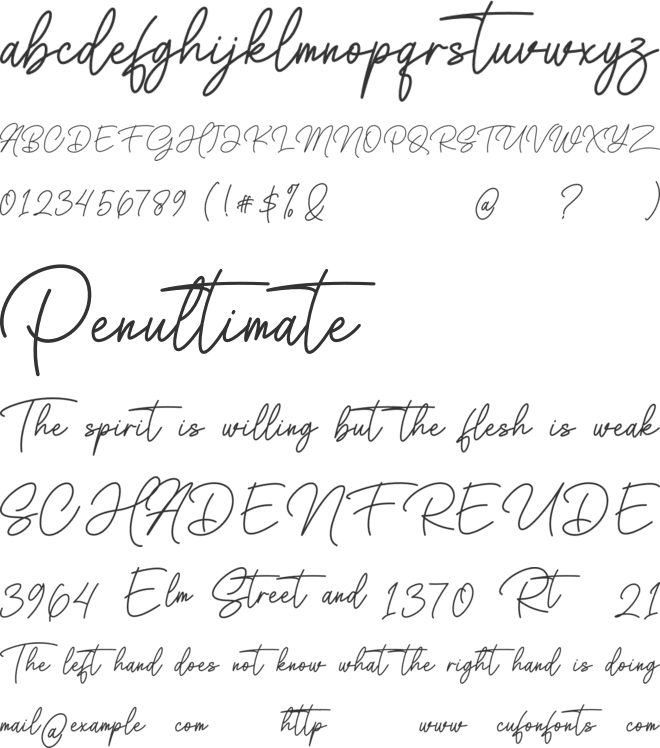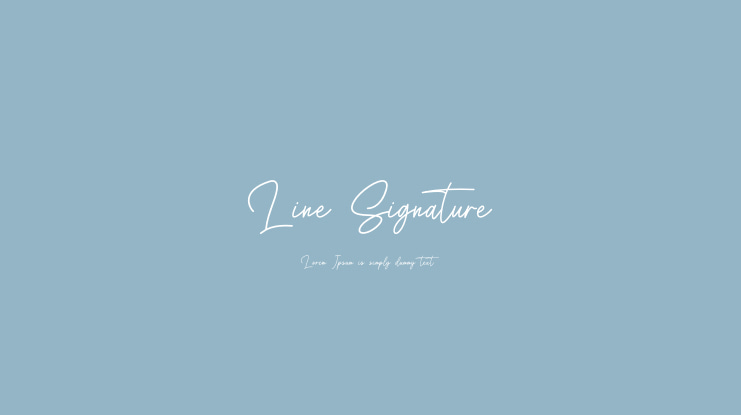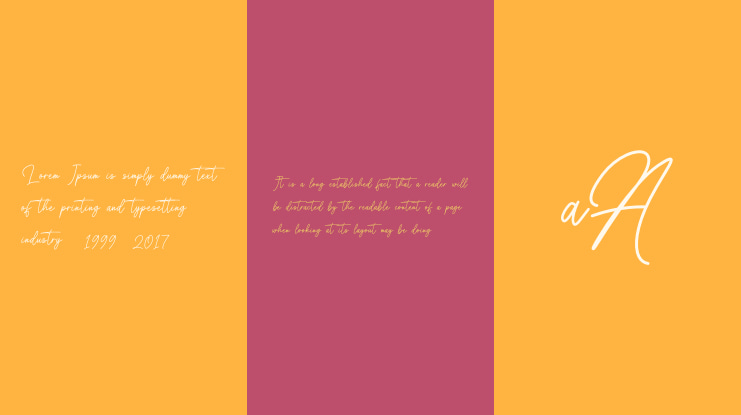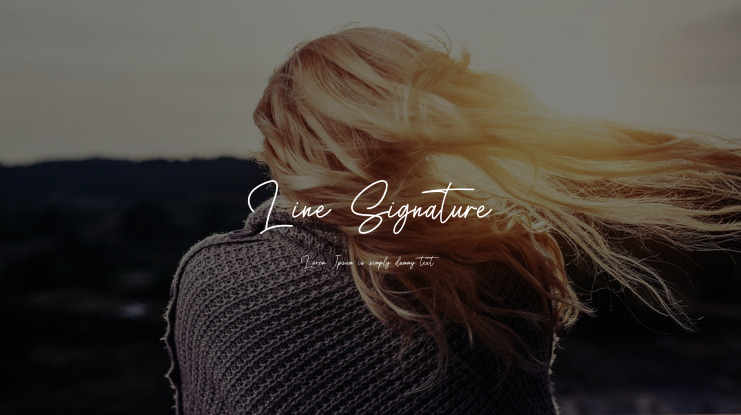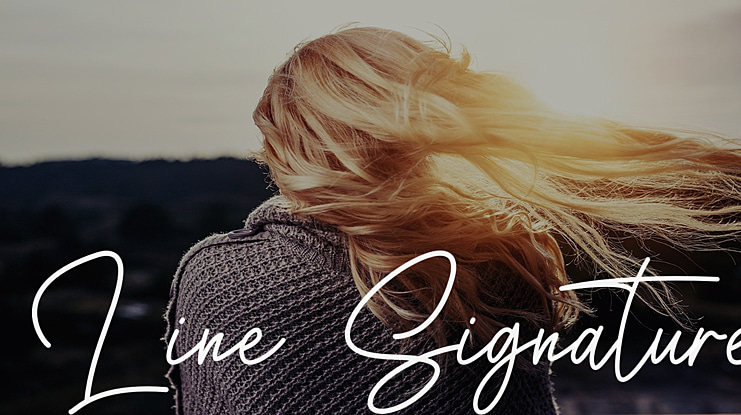
Line Signature Font
This is a modern handwriting signature font with a unique feel and a stunning impact. It will add a luxury spark to any design project that you wish to create. This font is perfect for designing t-shirts, invitations, magazines, greeting cards, and more. this font was designed to enhance the beauty of your projects! This font is PUA encoded which means you can access all of the amazing glyphs and ligatures with ease!